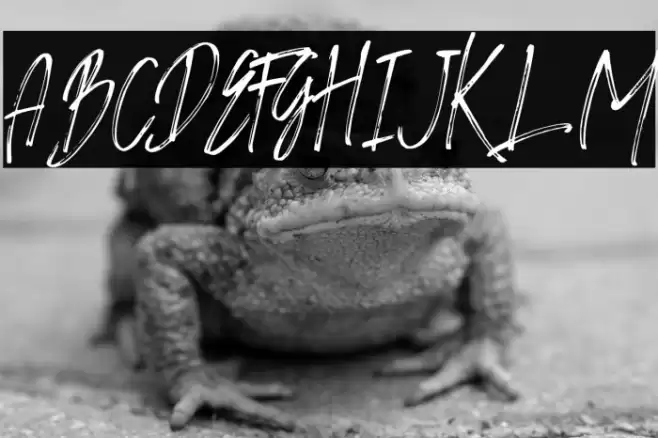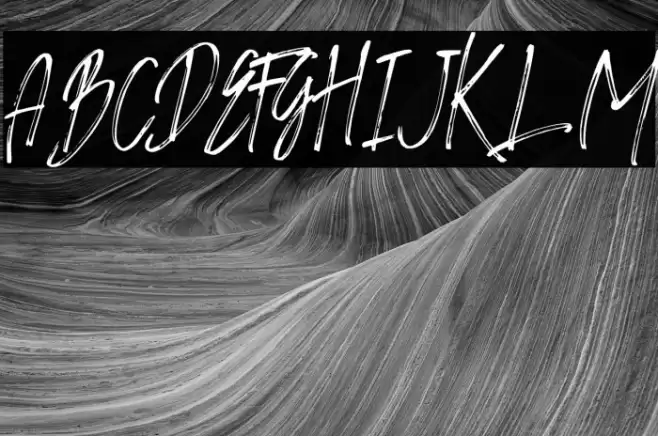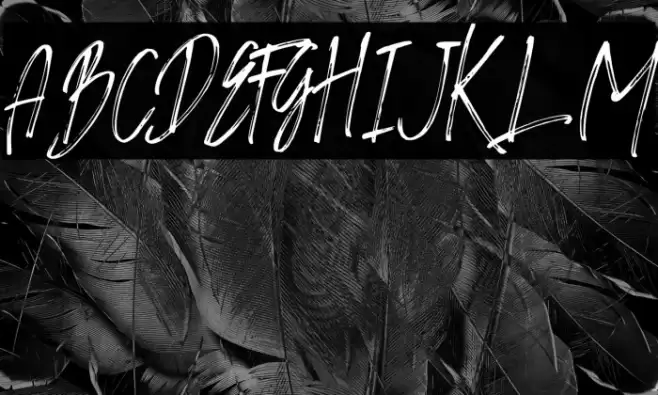
AMBYAR Font
AMBYAR Description
This font exhibits a dynamic and expressive handwritten style, characterized by its fluid and cursive strokes. The letters are crafted with a sense of movement, giving an energetic and spontaneous feel. The uppercase and lowercase letters maintain a consistent flow, with some letters extending slightly beyond the baseline, adding to its informal charm. The numerals and special characters follow the same lively aesthetic, ensuring a cohesive look throughout. This font's unique personality makes it stand out, perfect for projects that require a personal touch.
A dynamic, expressive handwritten font with fluid, cursive strokes from Uncategorized fonts.
- Proposed Projects: Ideal for greeting cards, invitations, personal branding, and creative projects that require a personal, informal touch.
- Use Case: Logos, Headlines, Creative projects